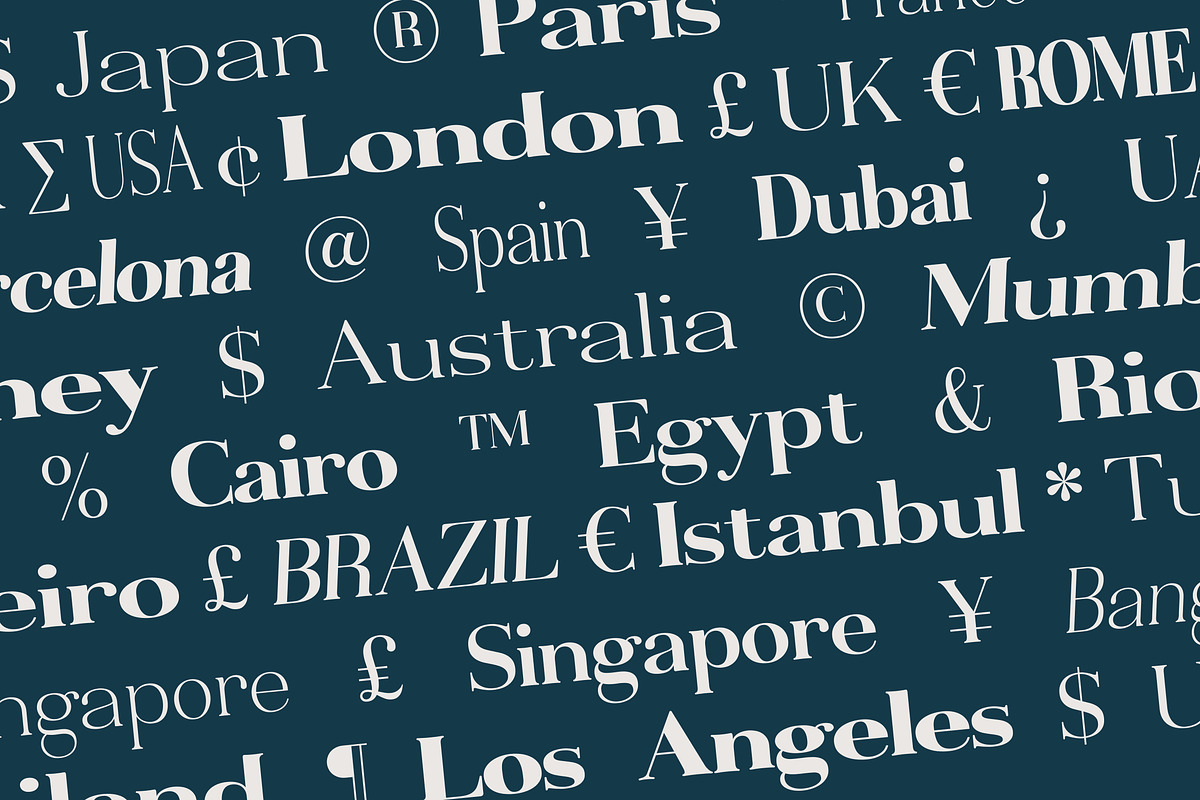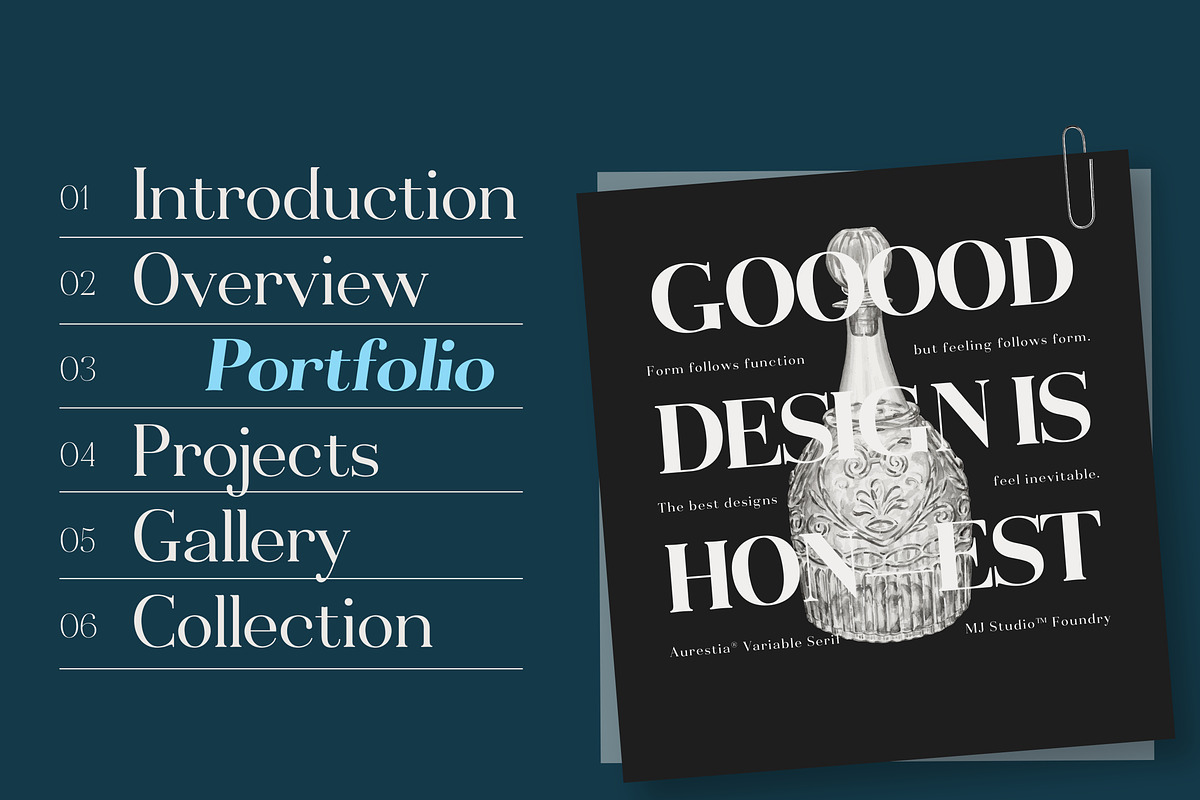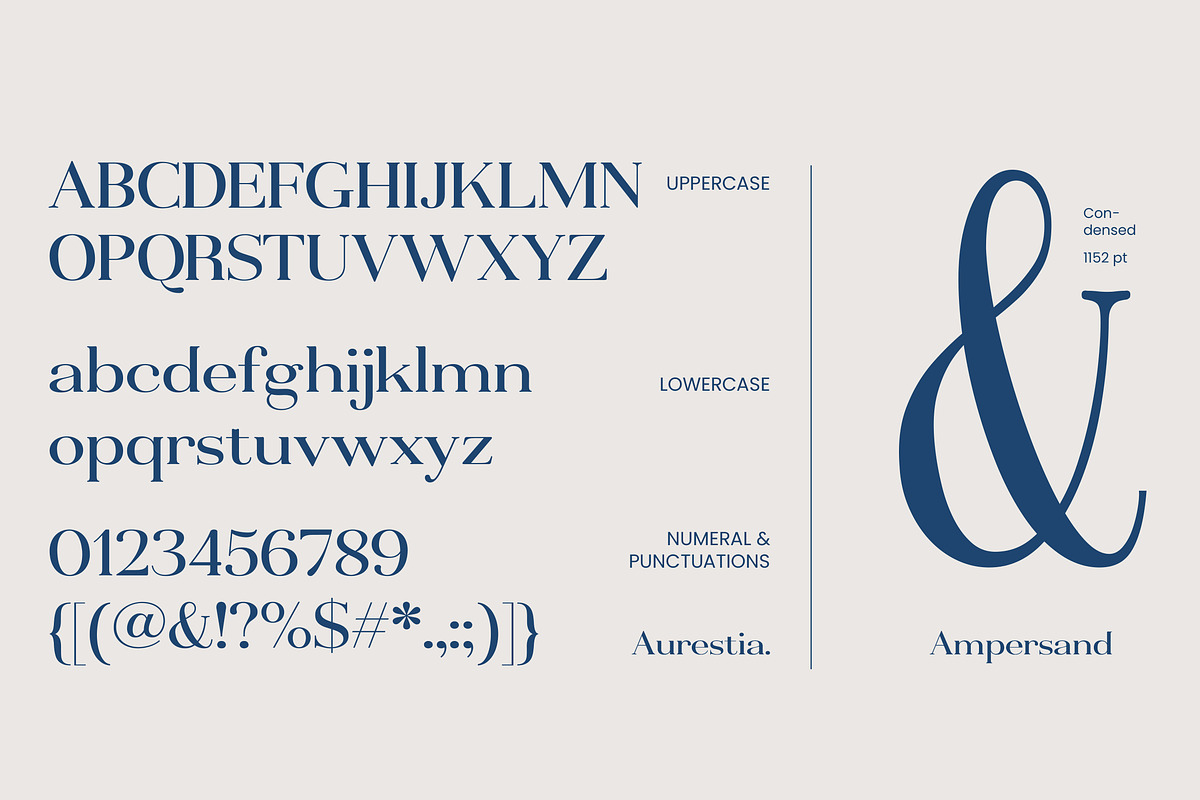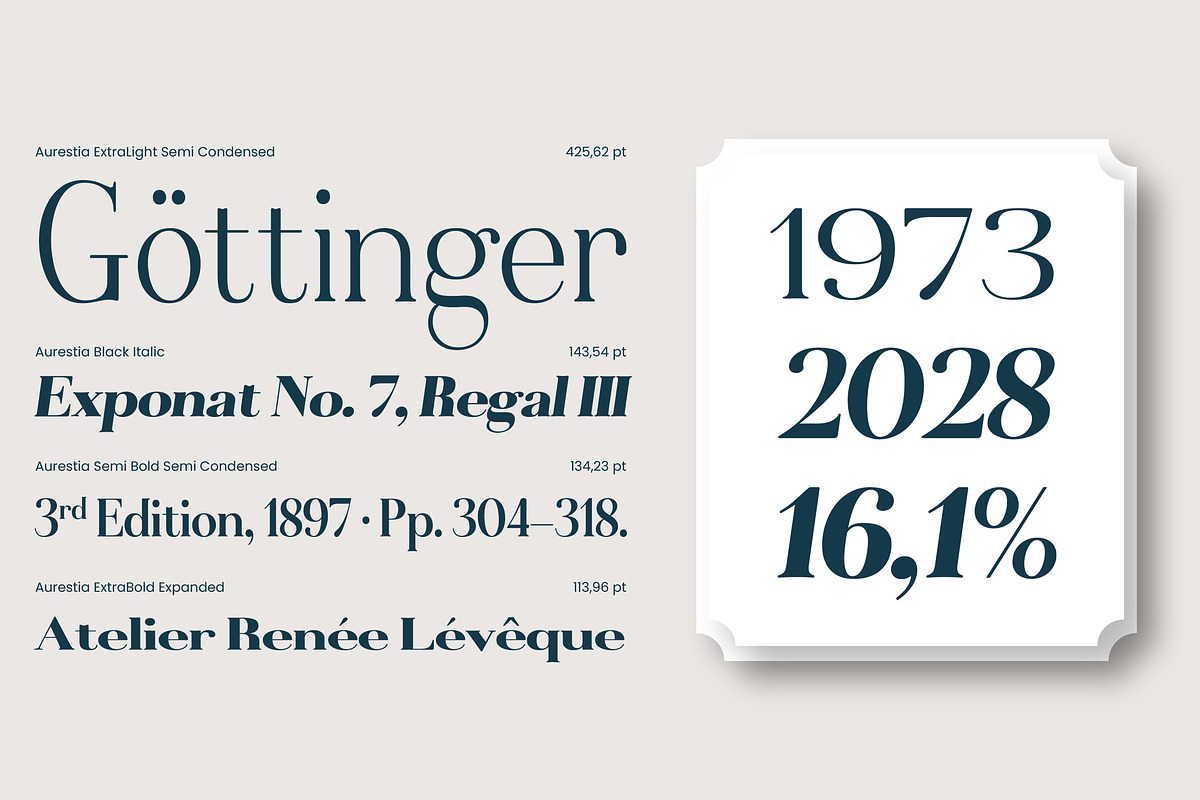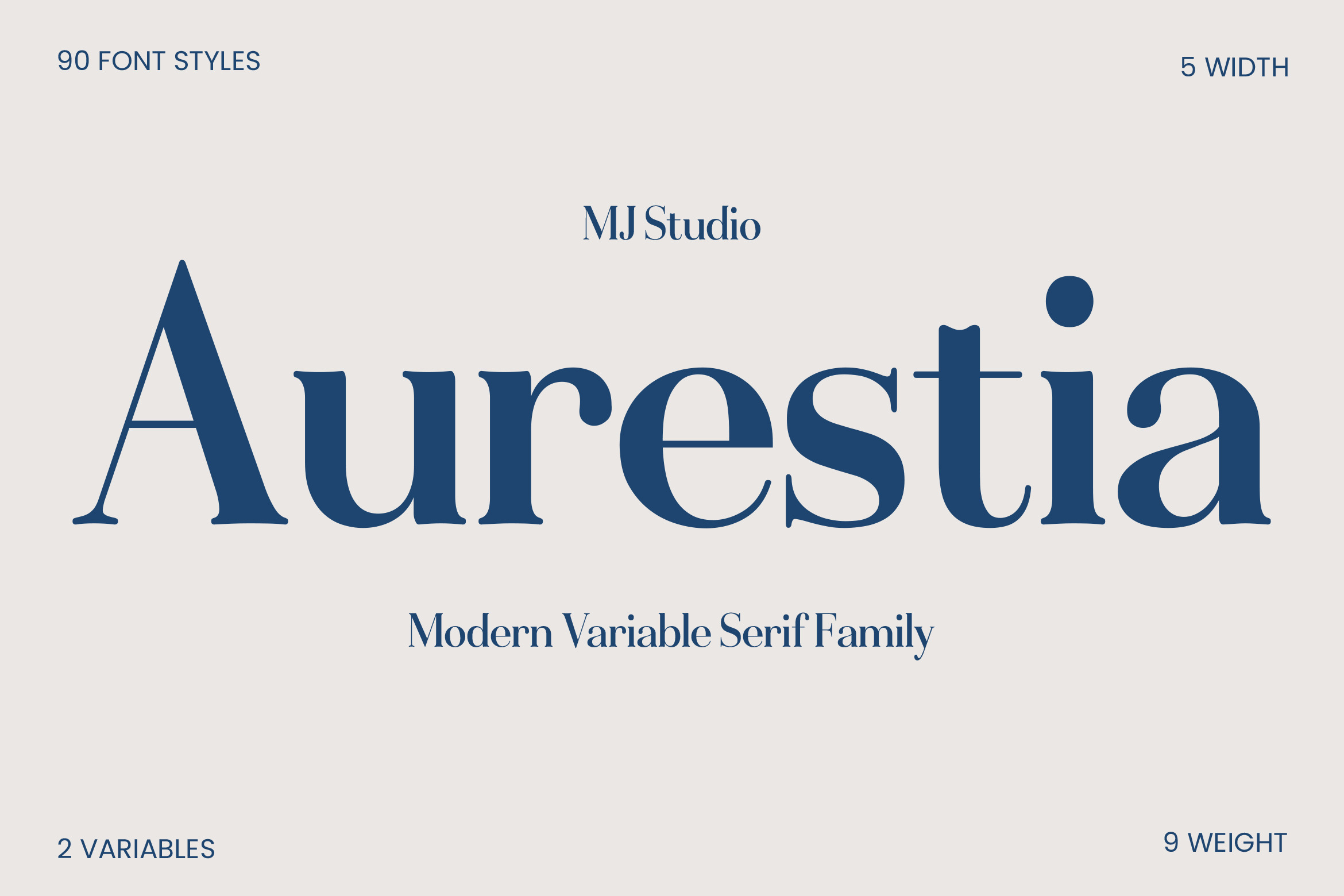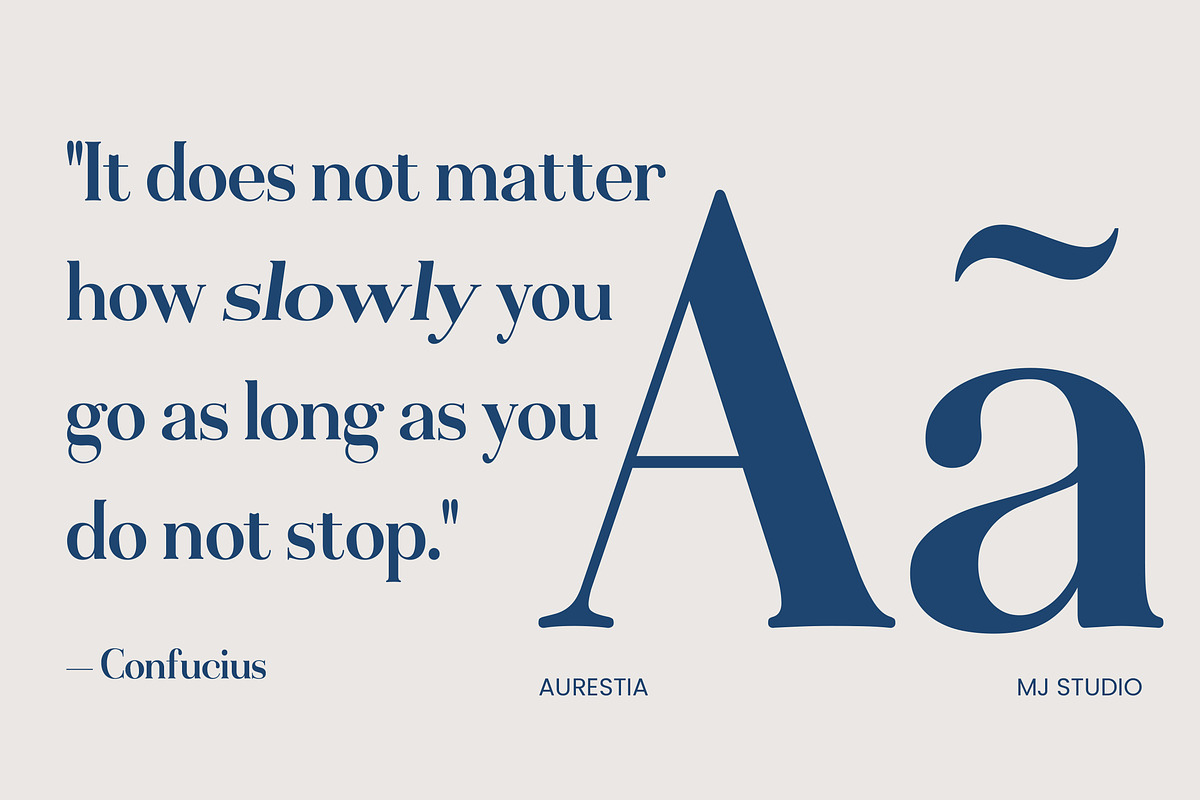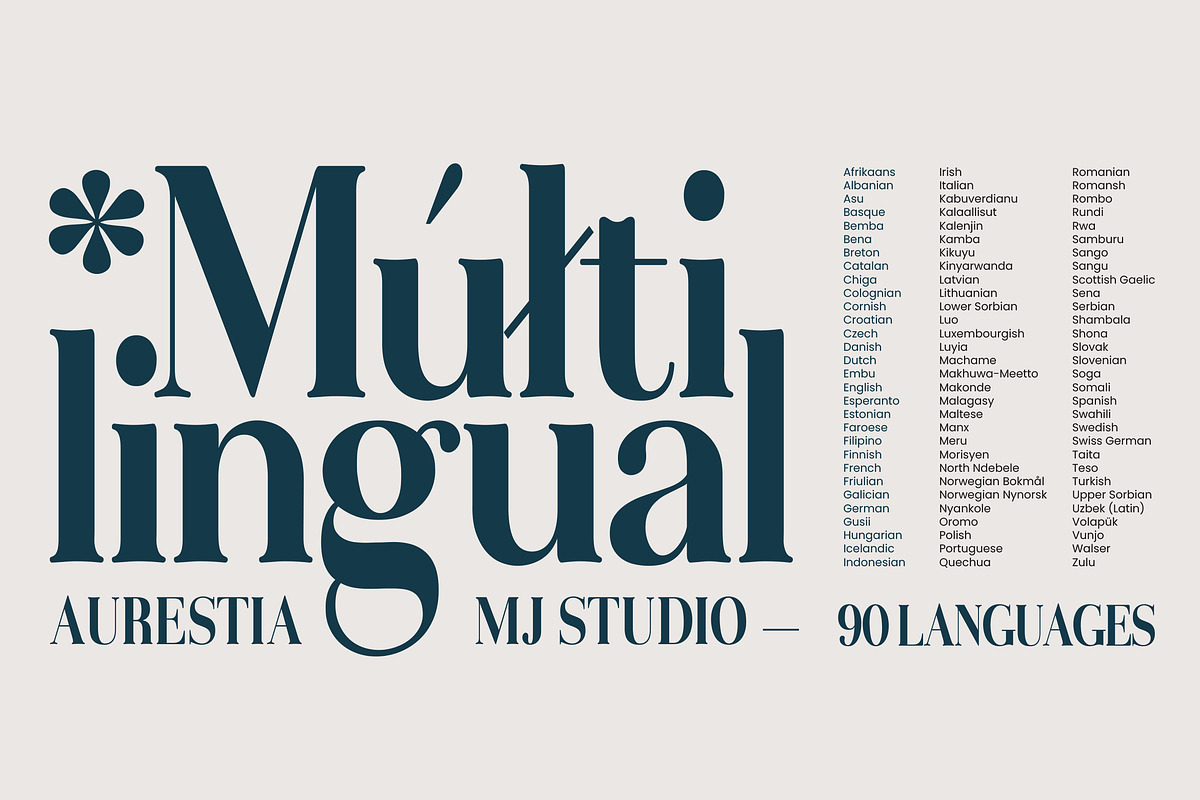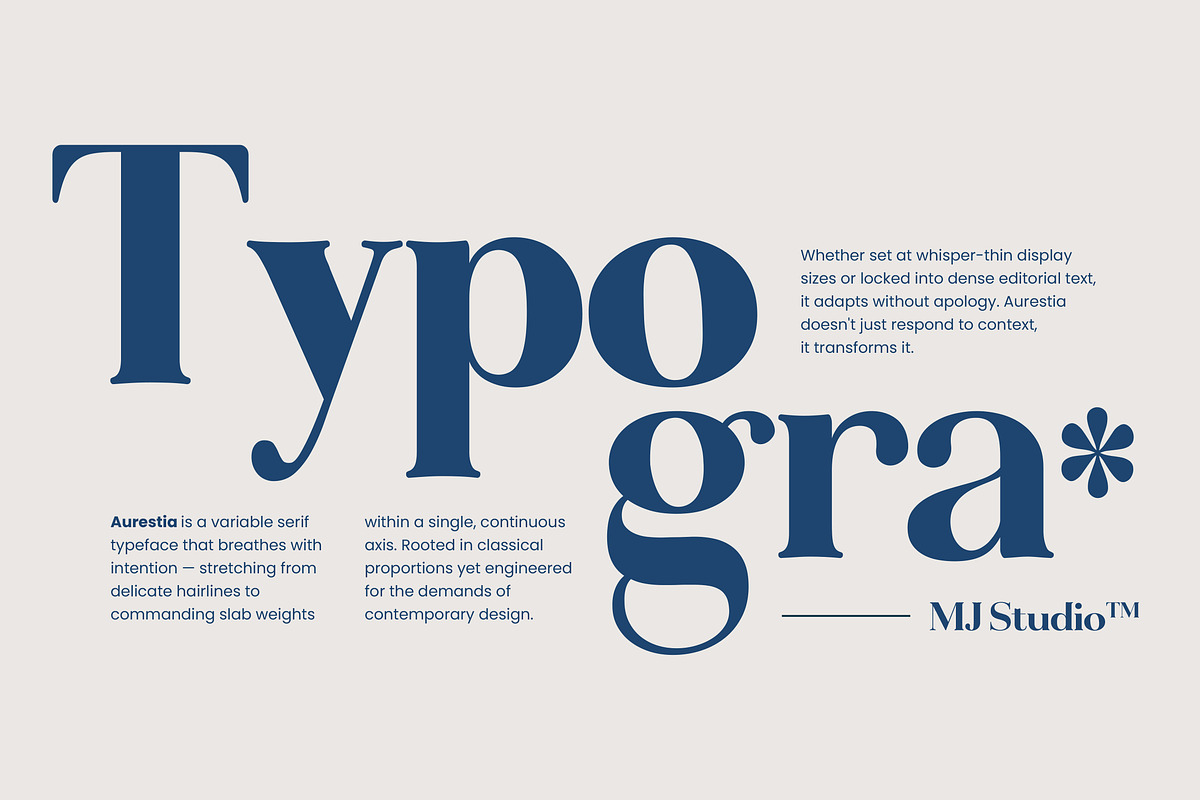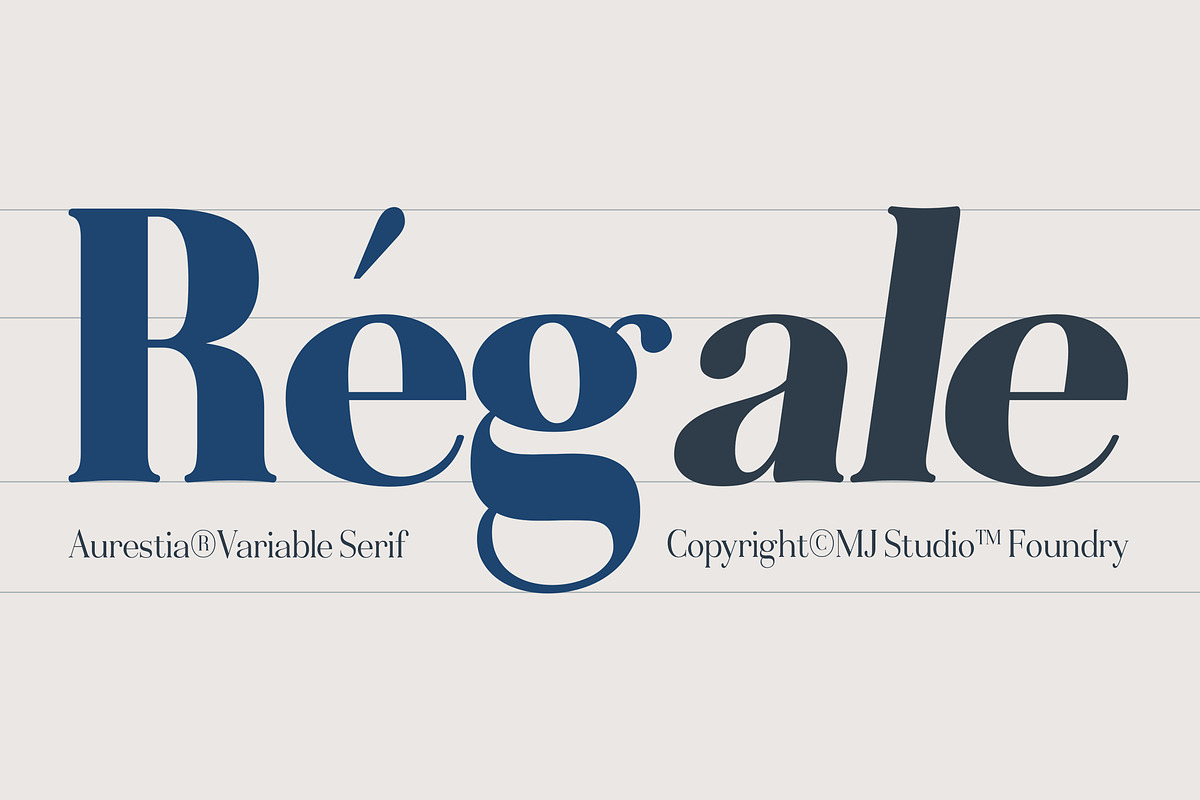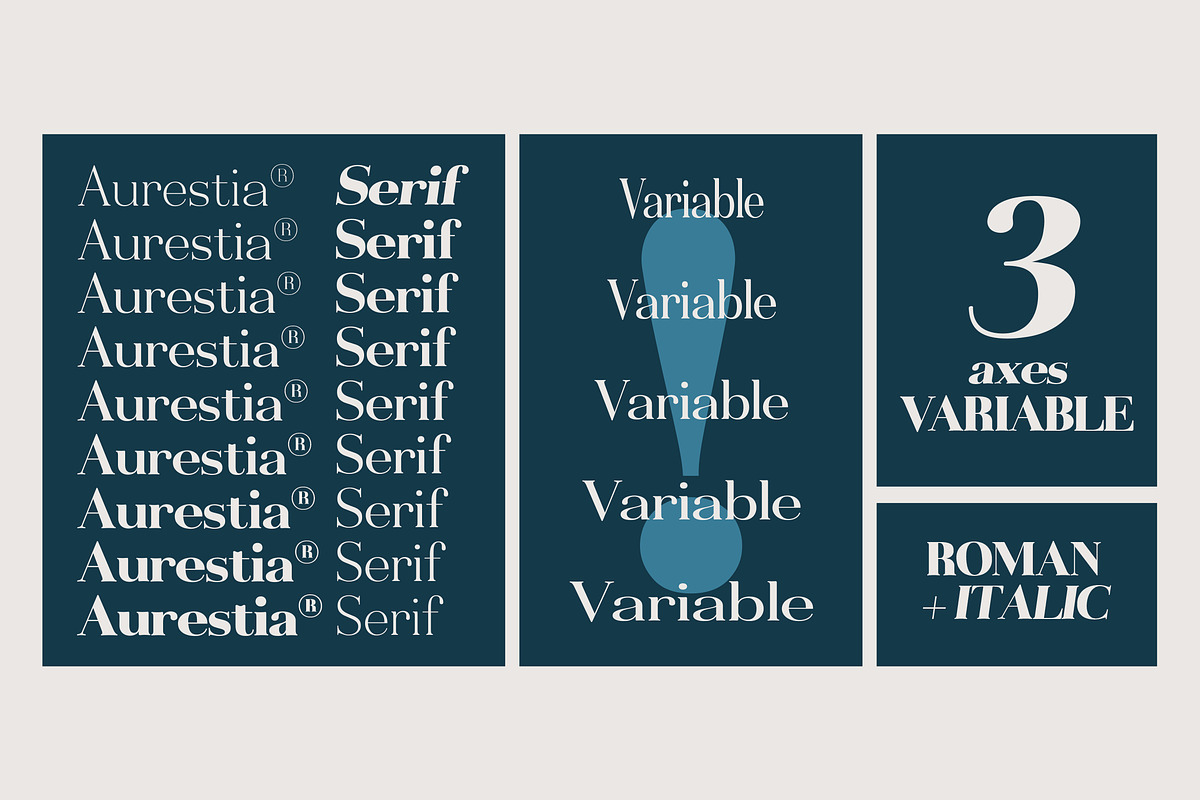
Aurestia – Modern Variable Serif Family
Aurestia is a modern serif typeface crafted to deliver the perfect balance between classic elegance and contemporary flexibility. With its refined letterforms, graceful proportions, and carefully designed serif details, Aurestia brings a sense of luxury, clarity, and sophistication to every design.
Powered by variable font technology, Aurestia offers full control across multiple weights and widths, allowing you to fine-tune your typography with precision—from light and delicate styles to bold and commanding expressions. This versatility makes it an ideal choice for a wide range of modern design needs.
Aurestia is perfect for:
Premium branding & luxury identities Editorial design (magazines, books, headlines) Elegant logos & packaging Modern, high-end websites Aesthetic social media visuals
Featuring 90 styles, 9 weights, and 5 widths, along with dynamic variable axes, Aurestia provides endless creative possibilities for designers seeking a professional and distinctive look.
If you’re looking for a modern serif that instantly elevates your design, Aurestia is the perfect choice—elegant, flexible, and captivating.